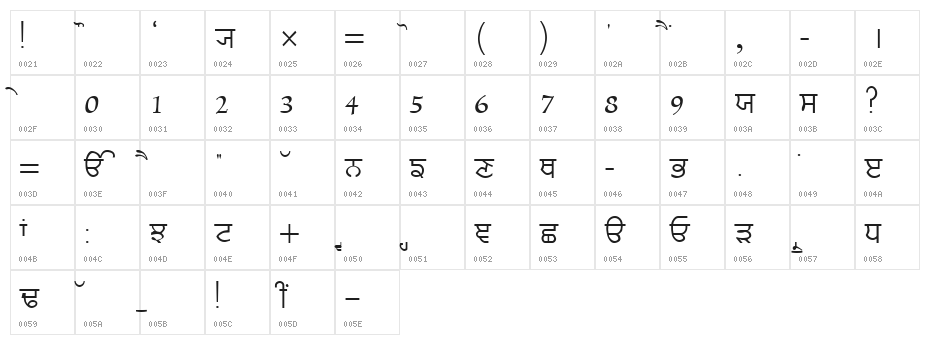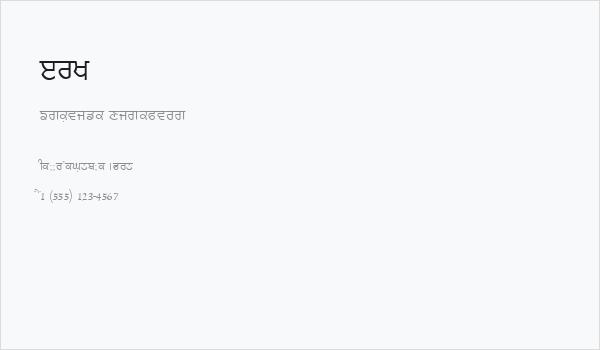
Joy Font
| Progetti proposti | This font is perfect for use in educational materials, signage, and digital interfaces where clarity is paramount. It can also be used in branding projects that require a modern yet timeless appeal. |